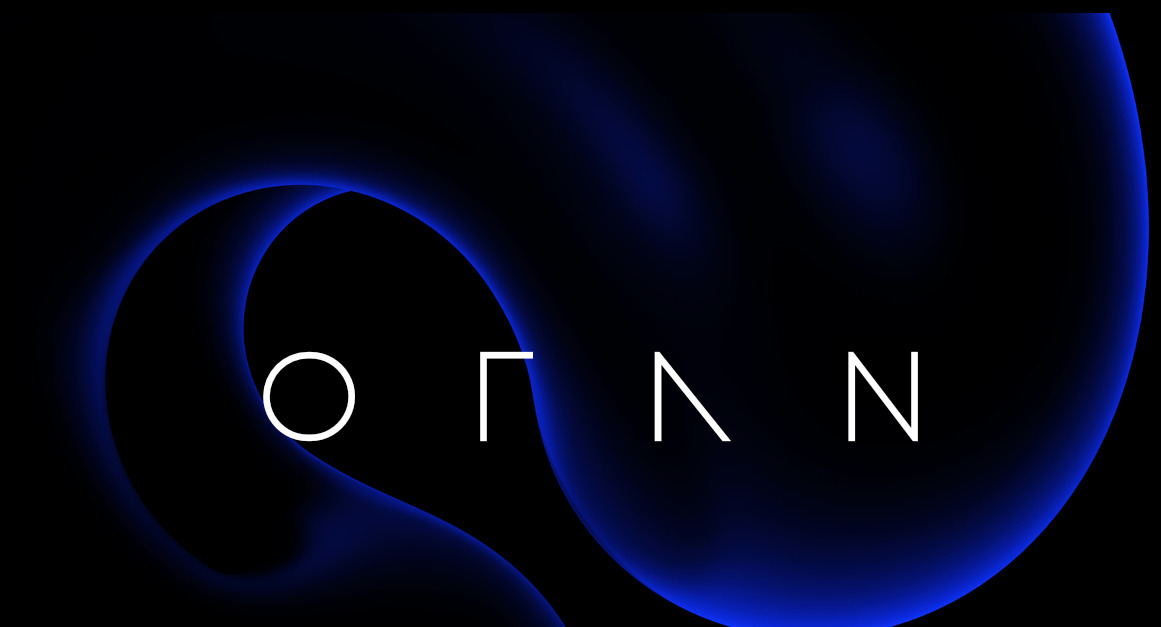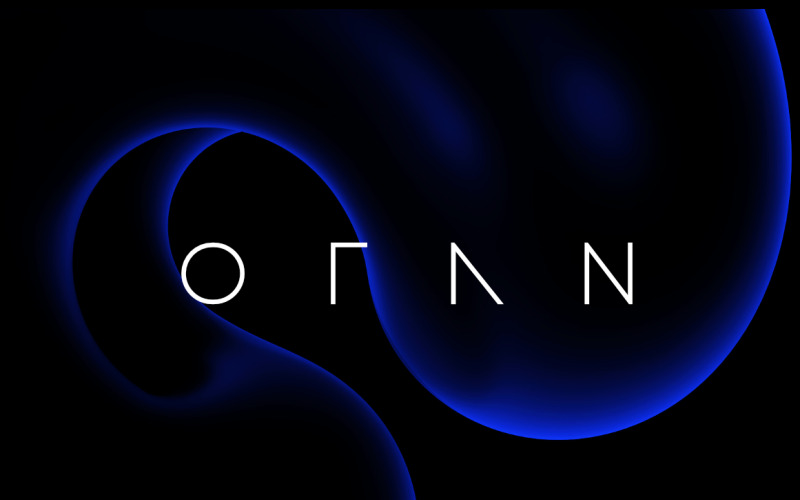
Rintvera the future of techno
Elevate your projects, from coding to presentations, with a font that speaks the language of progress. Unleash the power of pixels and transform your text into a visual journey. where technology meets typography.